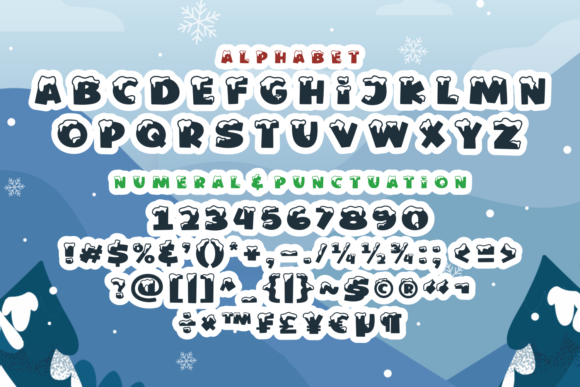
Winter Vibes Font
Winter Vibes is a modern and winter-inspired font. You can see the white snow on top of the letters. Grab this cute winter typeface and create amazing Christmas cards, online shops ads, sales, Xmas signs, kids’ books illustrations, and product printing.